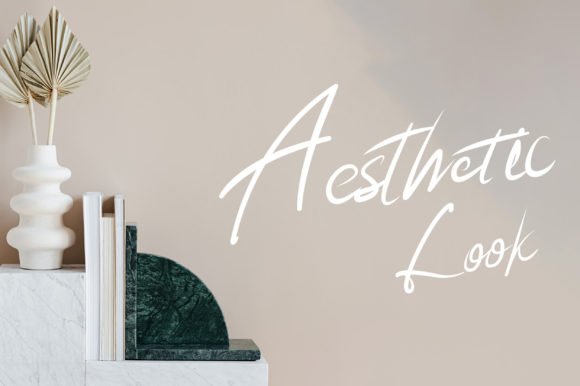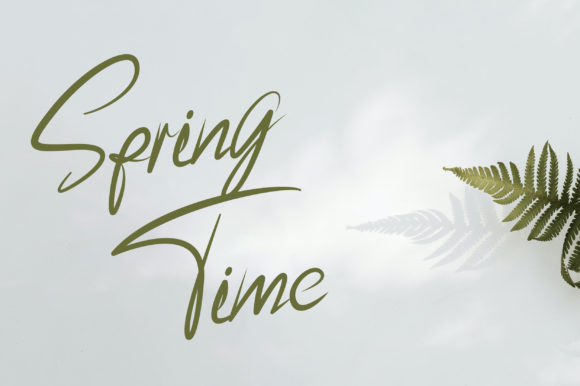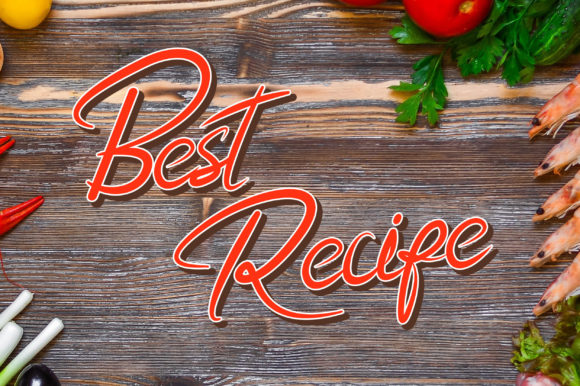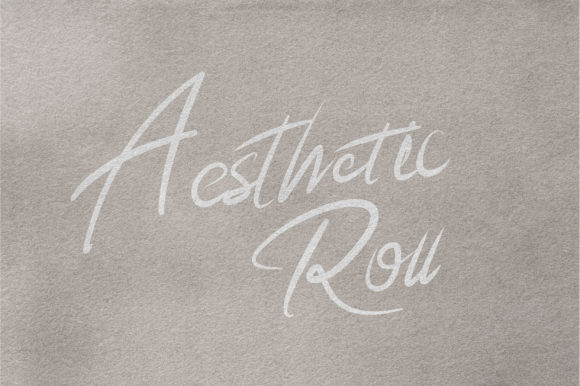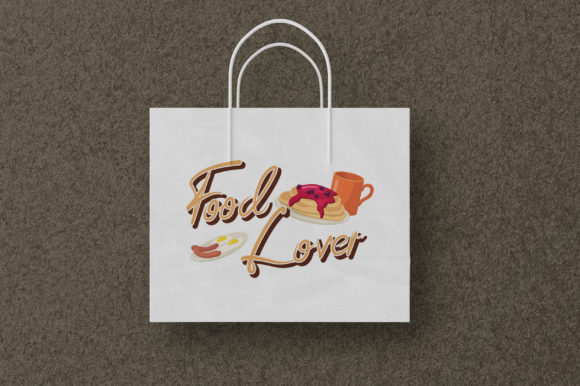
About Spring Roll Font
Spring RollĀ is a delicate and elegant handwritten font. Its distinct and well balanced letters make this font a masterpiece. Fall in love with its incredibly versatile style and use it to create spectacular designs!